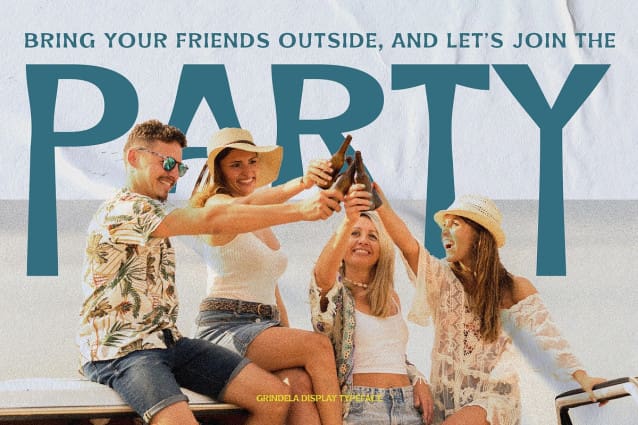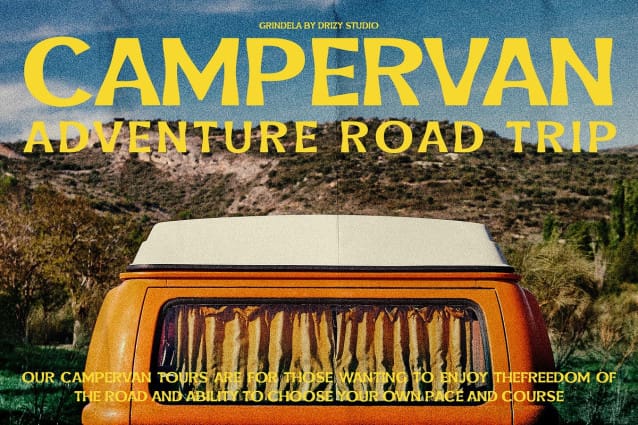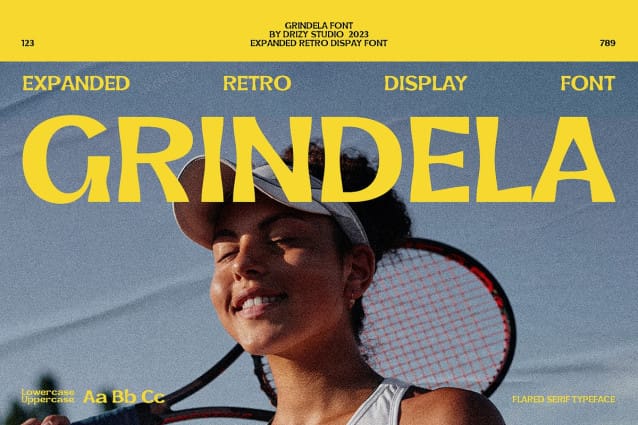
Grindela Font
Grindela Font! A flared retro font exudes a sense of timeless style of retro and flared style. This typeface is characterized by its gracefully exaggerated, flared, and often ornate letterforms, which lend a touch of sophistication and nostalgia to any design.